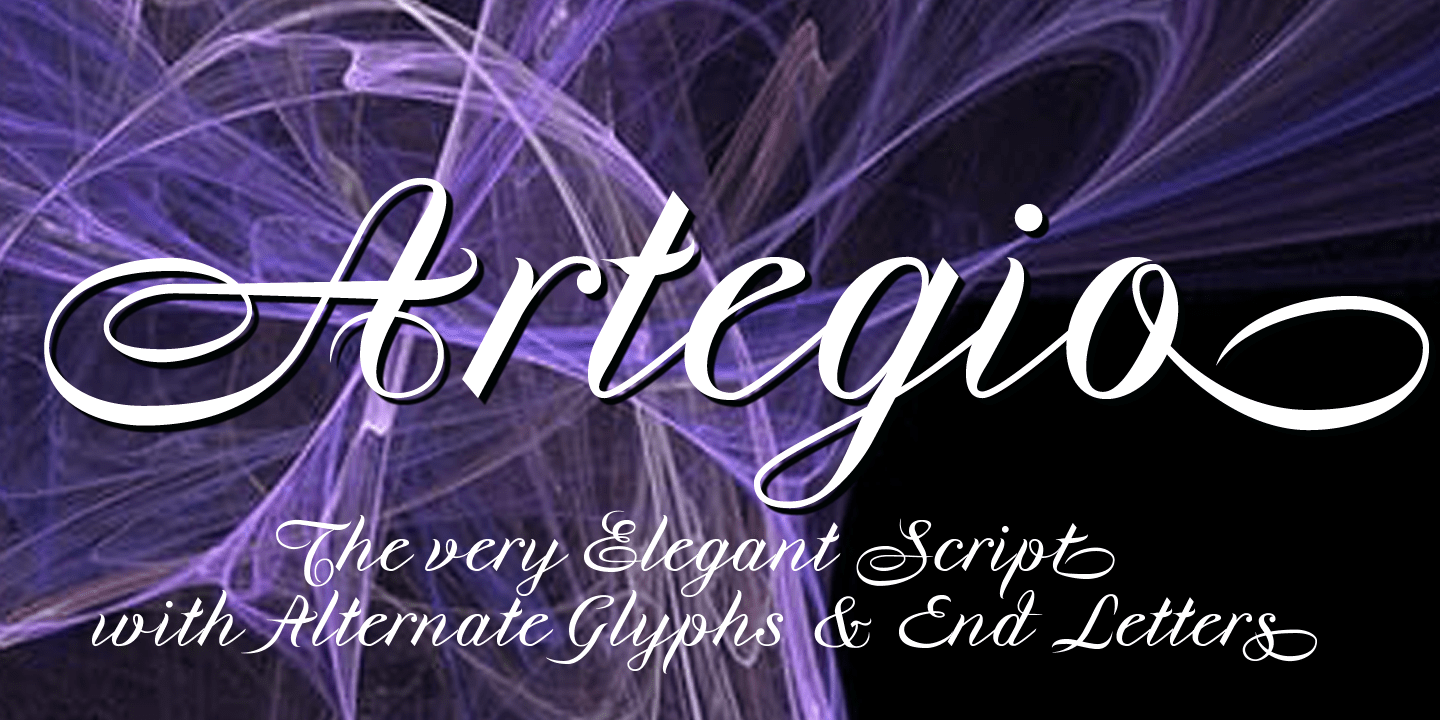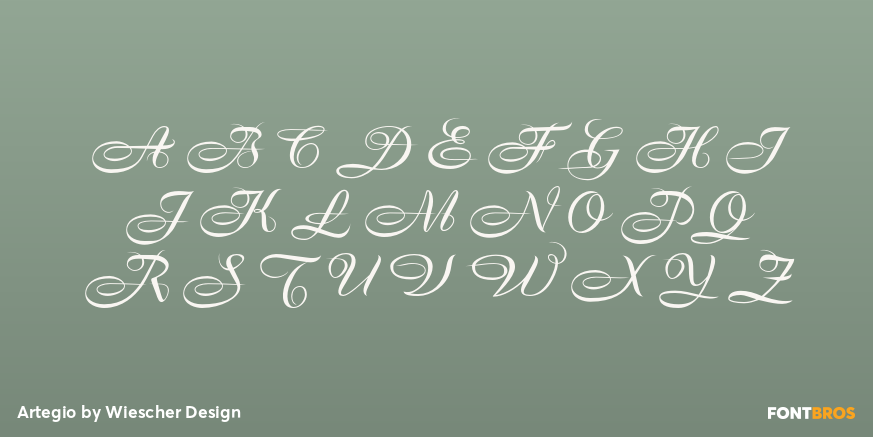
Artegio
Font Family by Wiescher Design
Artegio is an elegant, joining, classical script with impressive horizontal swirls.
I designed a complementary set with simpler capitals, lower-case ending letters and medieval ciphers.